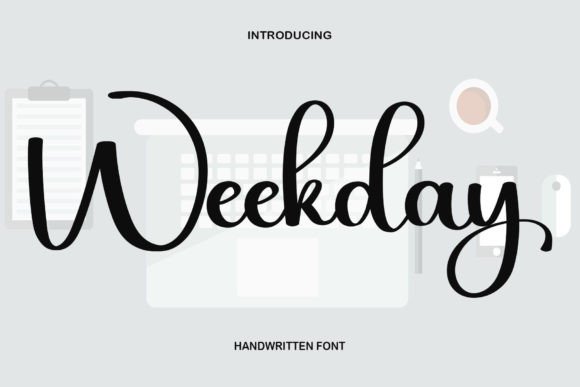
Weekday Font
In a world craving individuality and self-expression, where words dance and stories unfold, Weekday Font emerges as a captivating symphony of style and grace. Inspired by the timeless allure of classic calligraphy, this modern script font is a visual masterpiece that transforms your designs into works of art.
With Weekday Font, every letter is a brushstroke of elegance, carrying the weight of history and the promise of endless possibilities. Its fluid curves and delicate flourishes evoke a sense of nostalgia, while its contemporary edge keeps it firmly rooted in the present. It's a font that transcends time, appealing to the romantics and the modernists alike.
Whether you're a seasoned designer or a creative soul just starting your journey, Weekday Font is your perfect companion. Its versatility knows no bounds, effortlessly adapting to a myriad of projects, from heartfelt wedding invitations to bold branding campaigns. It's the font that turns your words into visual poetry, captivating your audience with its charm and sophistication.
Unleash your creativity and let Weekday Font guide you through a world of boundless expression. Its carefully crafted characters will add a touch of elegance to your logos, posters, and social media posts, making them stand out from the crowd. Its impeccable form ensures that your designs remain timeless, leaving a lasting impression on all who encounter them.
With Weekday Font, you're not just downloading a font; you're embracing a legacy of beauty and artistry. It's a font that will elevate your projects, turning them into treasured keepsakes that reflect your unique style and personality. So, dive into the world of Weekday Font and let your creativity flourish like never before.